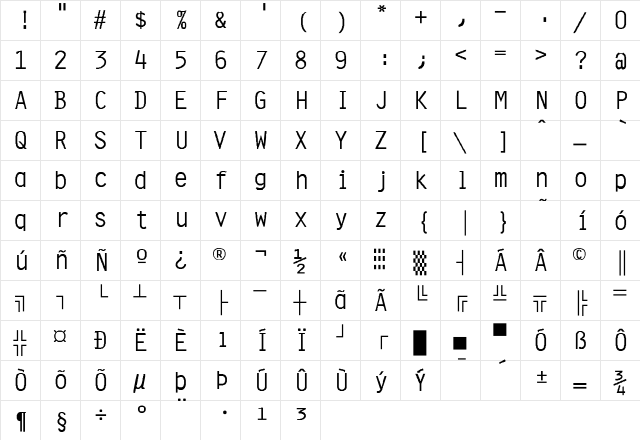
Presentor-Norma Regular
Design Context for Presentor-Norma Typeface
Presentor-Norma takes a measured approach to typography — its balanced proportions and neutral character make it a reliable workhorse for both digital and print work.